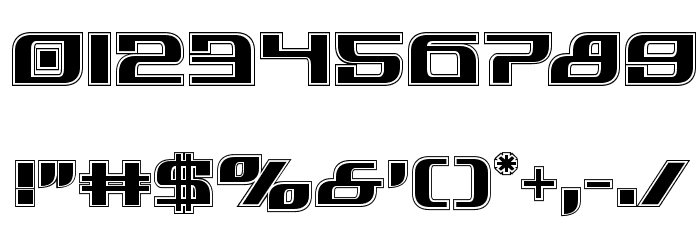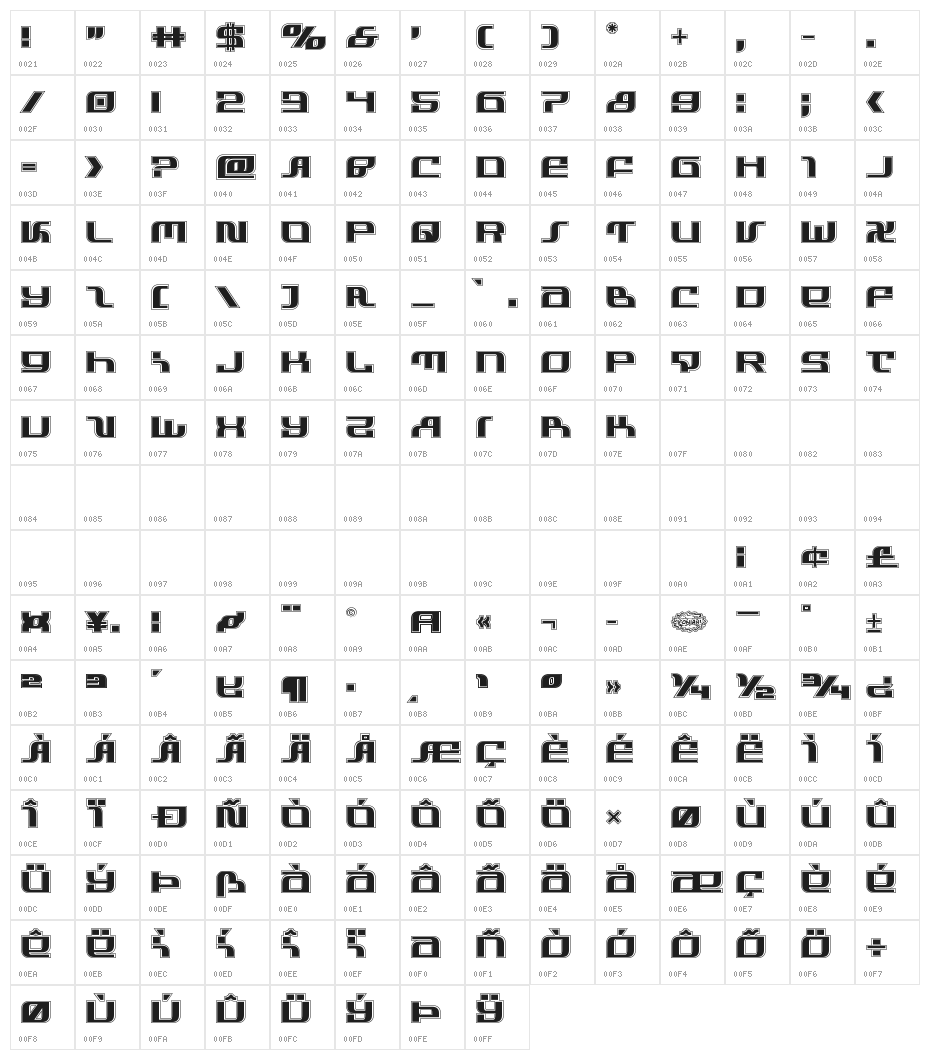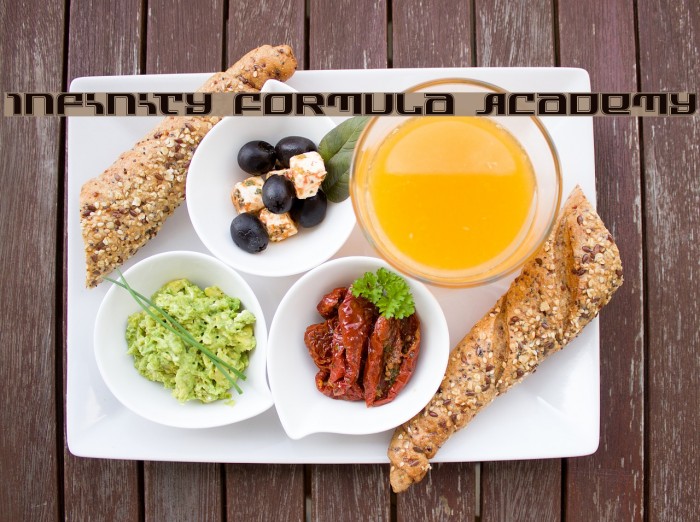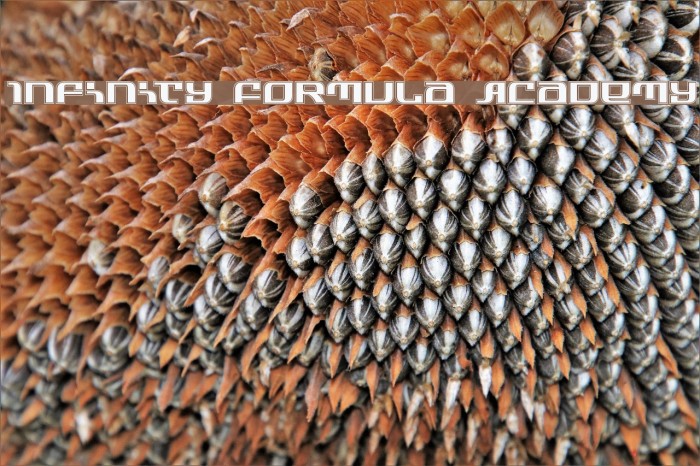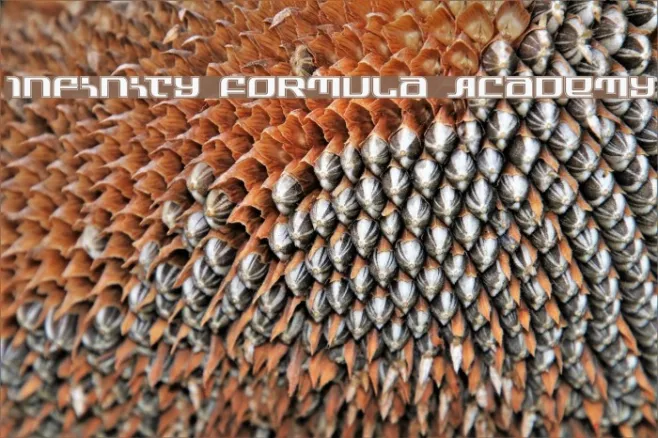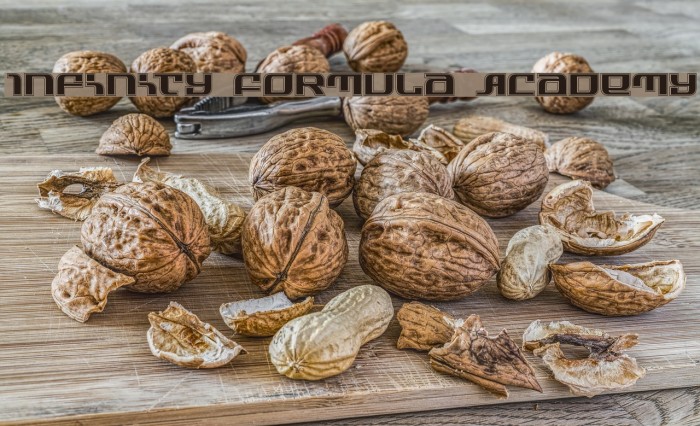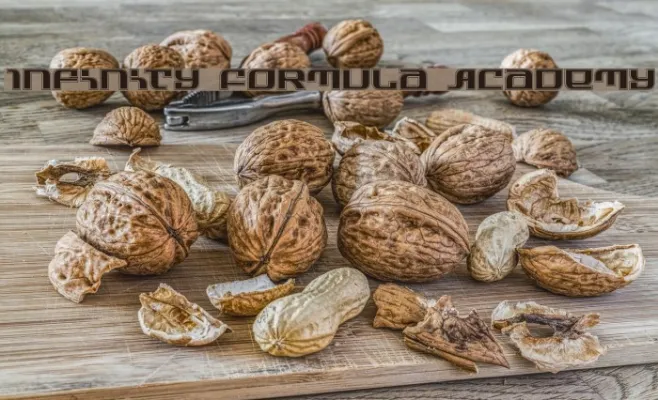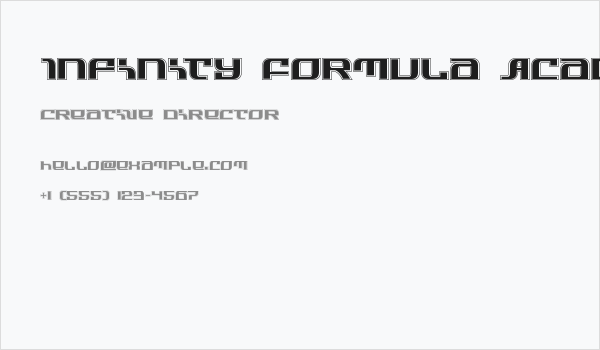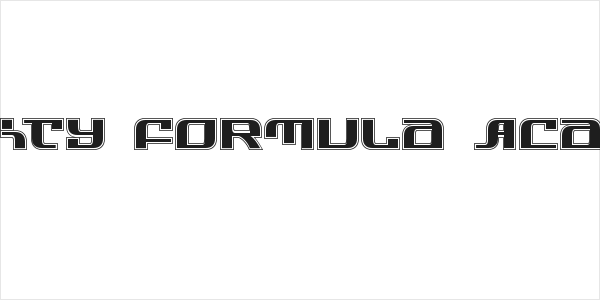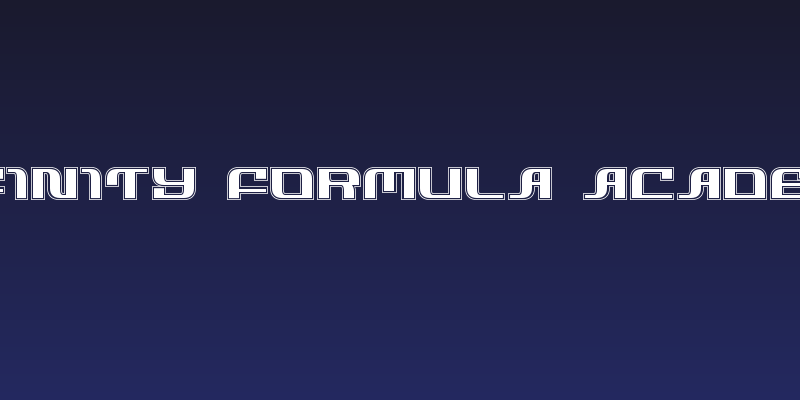
Infinity Formula Academy Font
Infinity Formula Academy Description
This font features a futuristic and geometric design with bold, angular lines and a strong presence. The characters are outlined, creating a hollow effect that adds depth and dimension. The uppercase and lowercase letters maintain a consistent style, with sharp edges and a uniform width. The numerals and special characters follow the same design principles, ensuring a cohesive look across all elements. This font's unique style makes it stand out, ideal for projects that require a modern and edgy aesthetic.